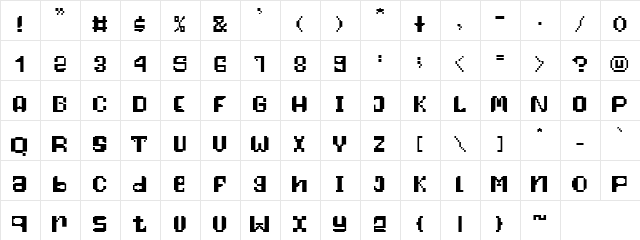
Pixelfy Regular
| Foundry | Stefie Justprince |
| Designer | Stefie Justprince |
Design Context for Pixelfy Typeface
Pixelfy is rooted in pixel-grid construction, making it a natural fit for game UI, retro computing aesthetics, and digital nostalgia projects.
A natural choice for retro game titles, chiptune music branding, 8-bit UI, and digital nostalgia projects.
Pro Tip: Pair Pixelfy with flat colour palettes and simple geometric UI elements to reinforce its digital aesthetic.